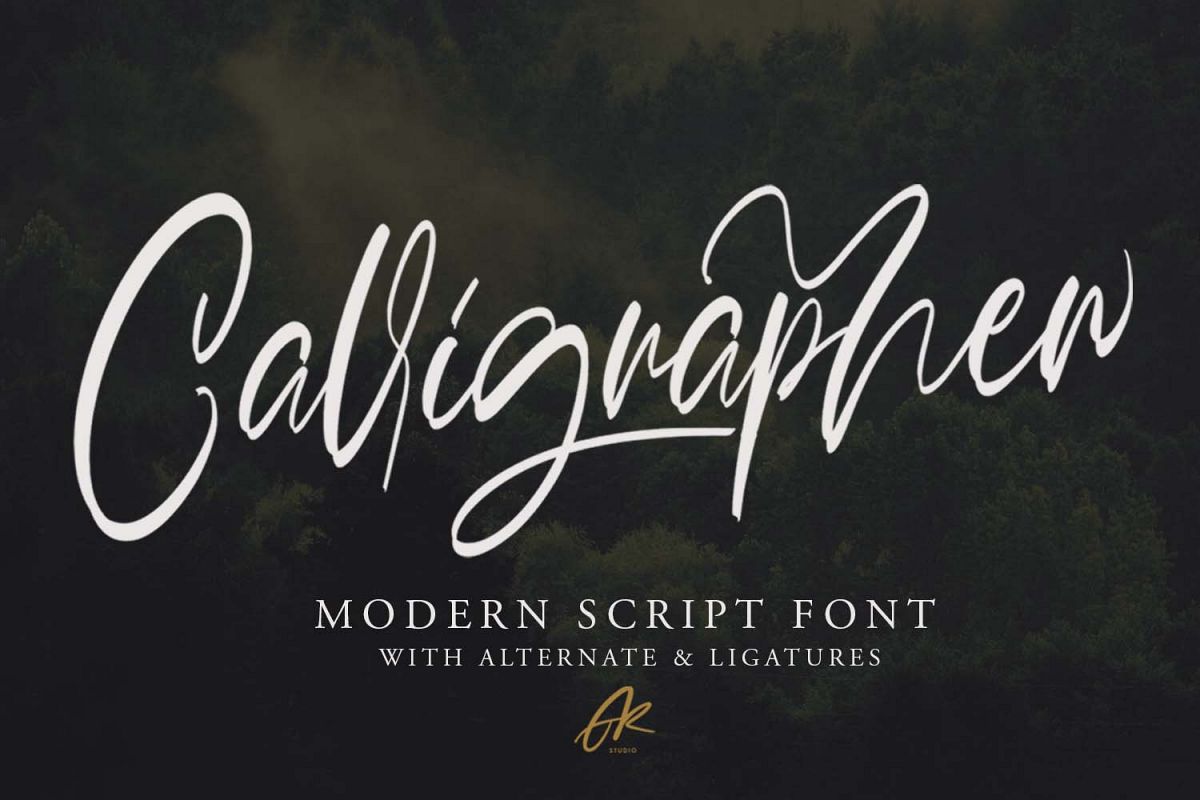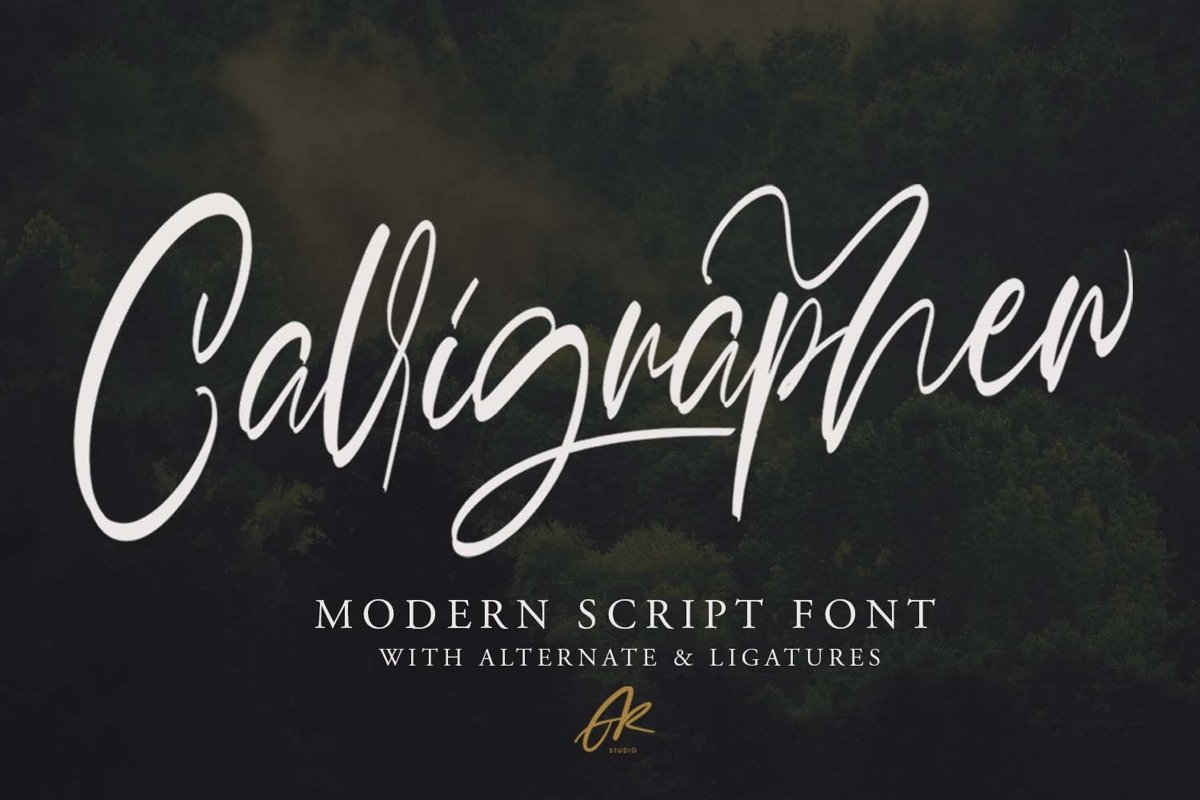
Calligrapher | Modern Script Font
Calligrapher is an elegant font and has its own distinctive style, so it looks luxurious in every character Calligrapher came with opentype features such stylistic alternates, stylistic sets & ligatures good for logotype, poster, badge, book cover, tshirt design, packaging and any more.
Features : • Character Set A-Z • Numerals & Punctuations (OpenType Standard) • Accents (Multilingual characters) • Ligature • Alternate • Swash